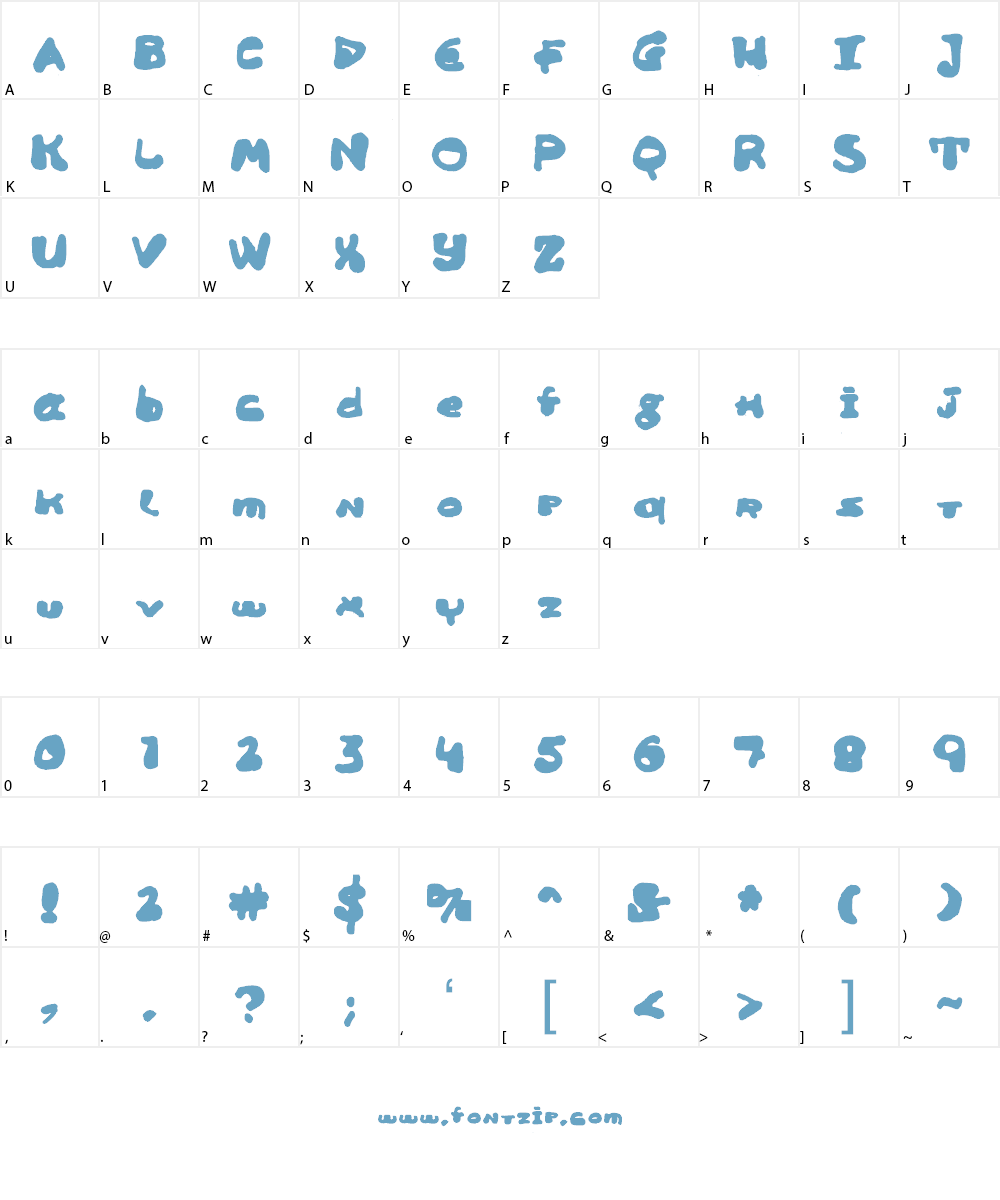
The first SWMCA Catalogs font of 2014 is Area 51 UFO. The Alien Greeting is the smooth regular version and the Apocalypse version is well "chaotic".
This is the only free font by SWMCA to include Hebrew, and probably the first "space font" in history to include these. Cyrillic and Greek characters are included, and this may very well be the first space font to include these too. If not, it's one of the few that do.